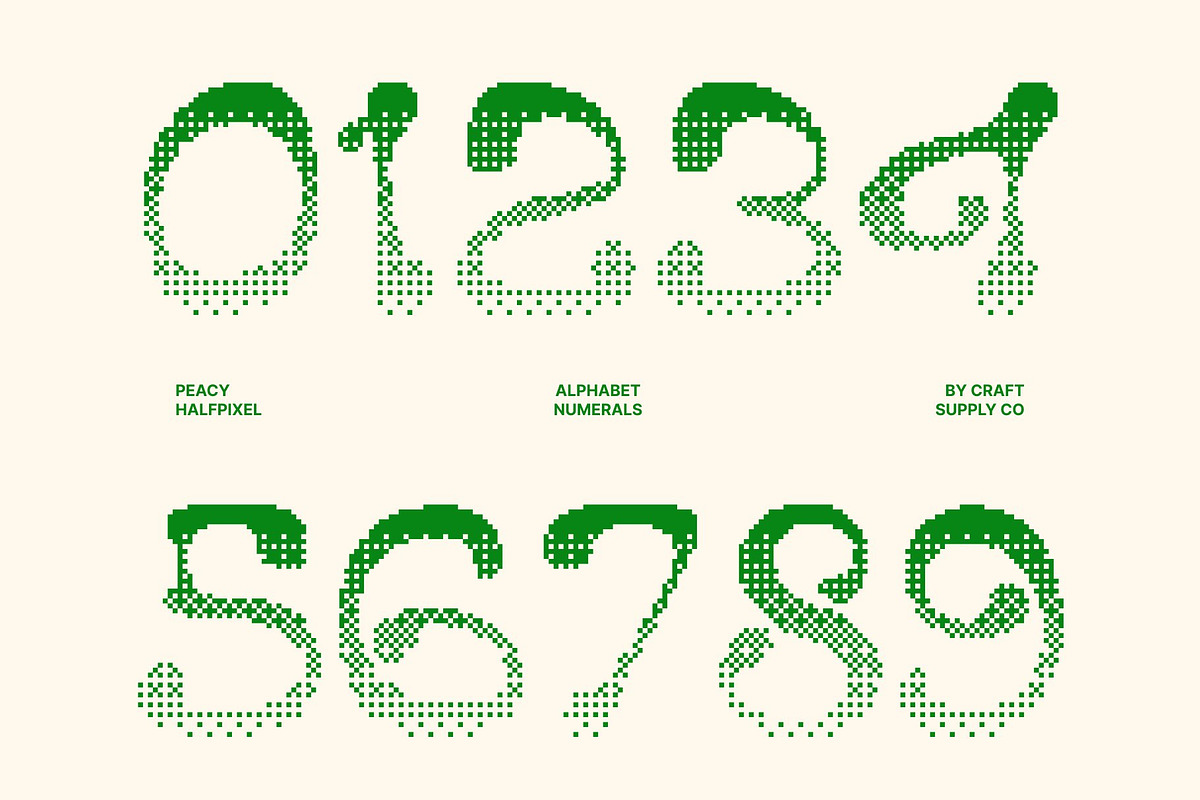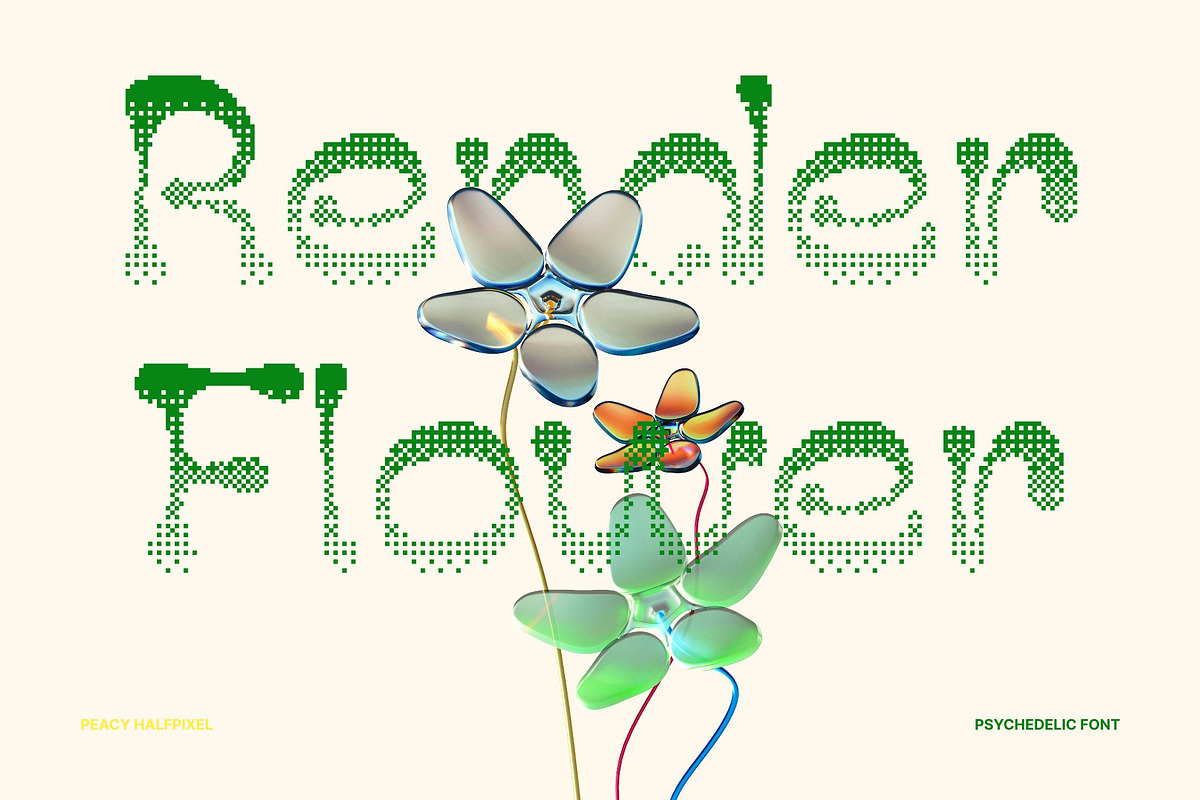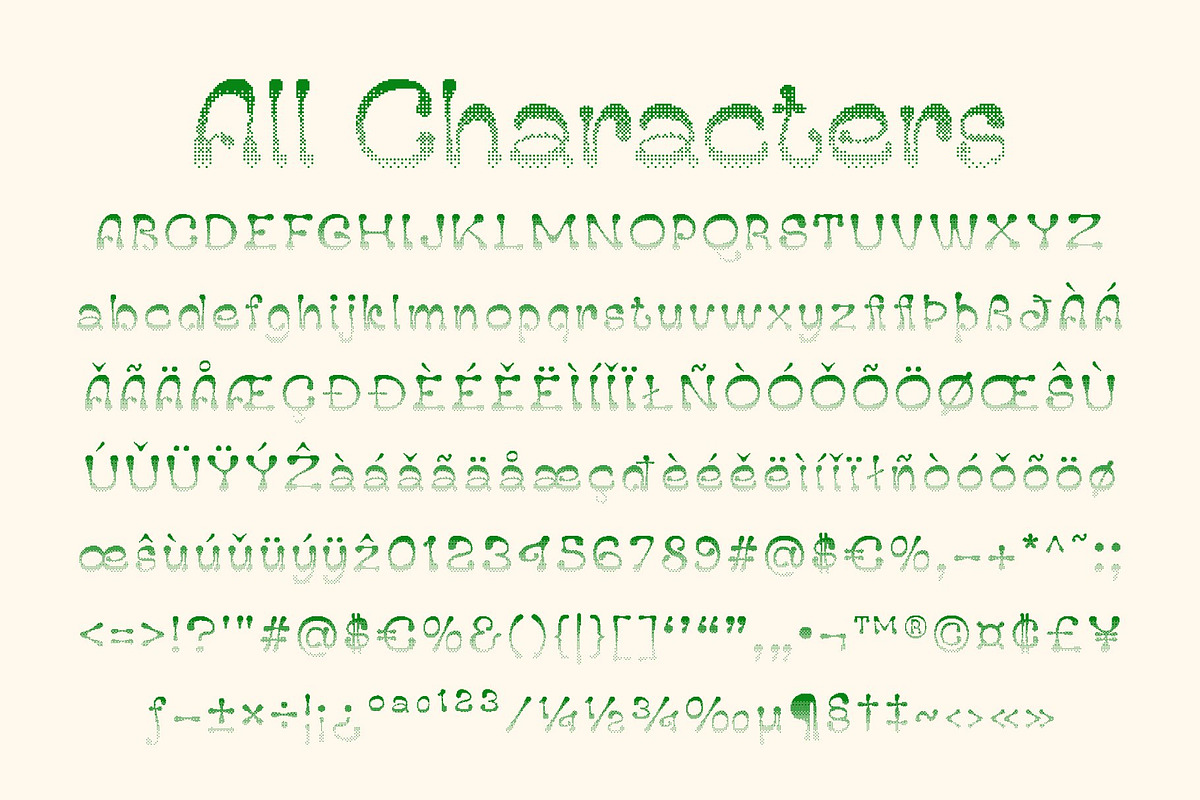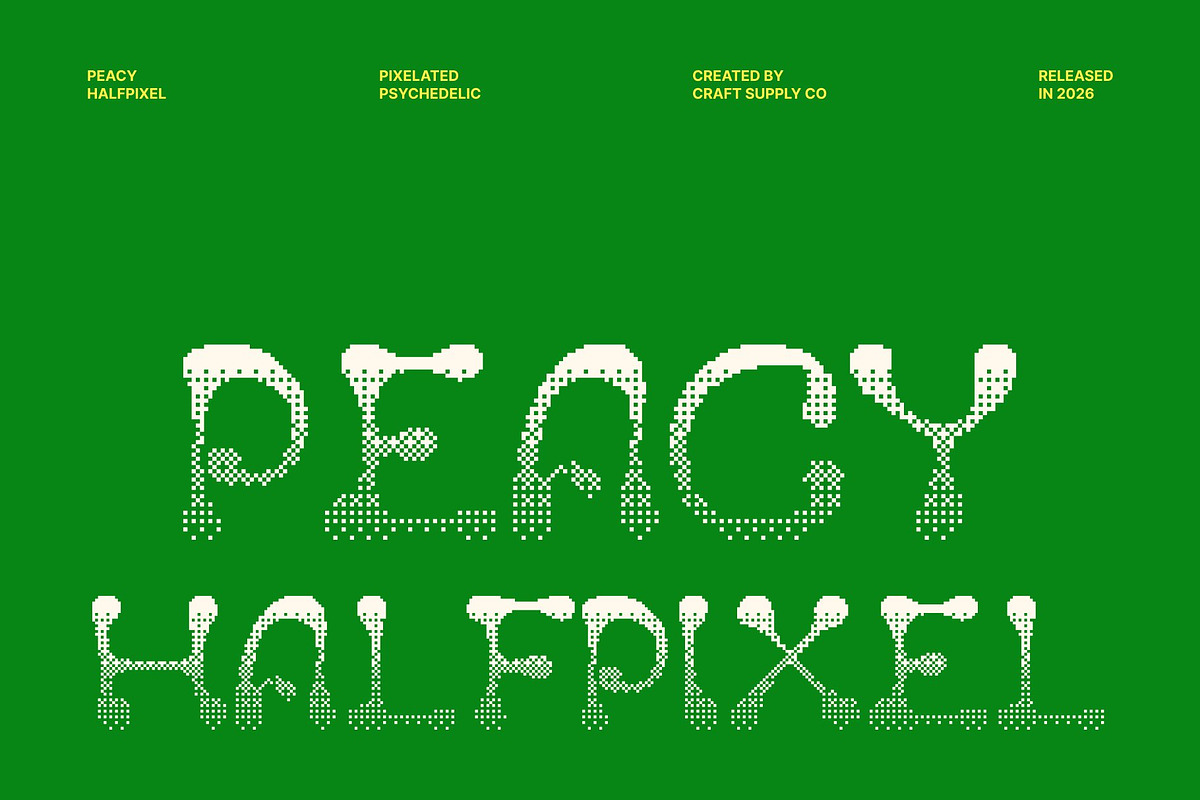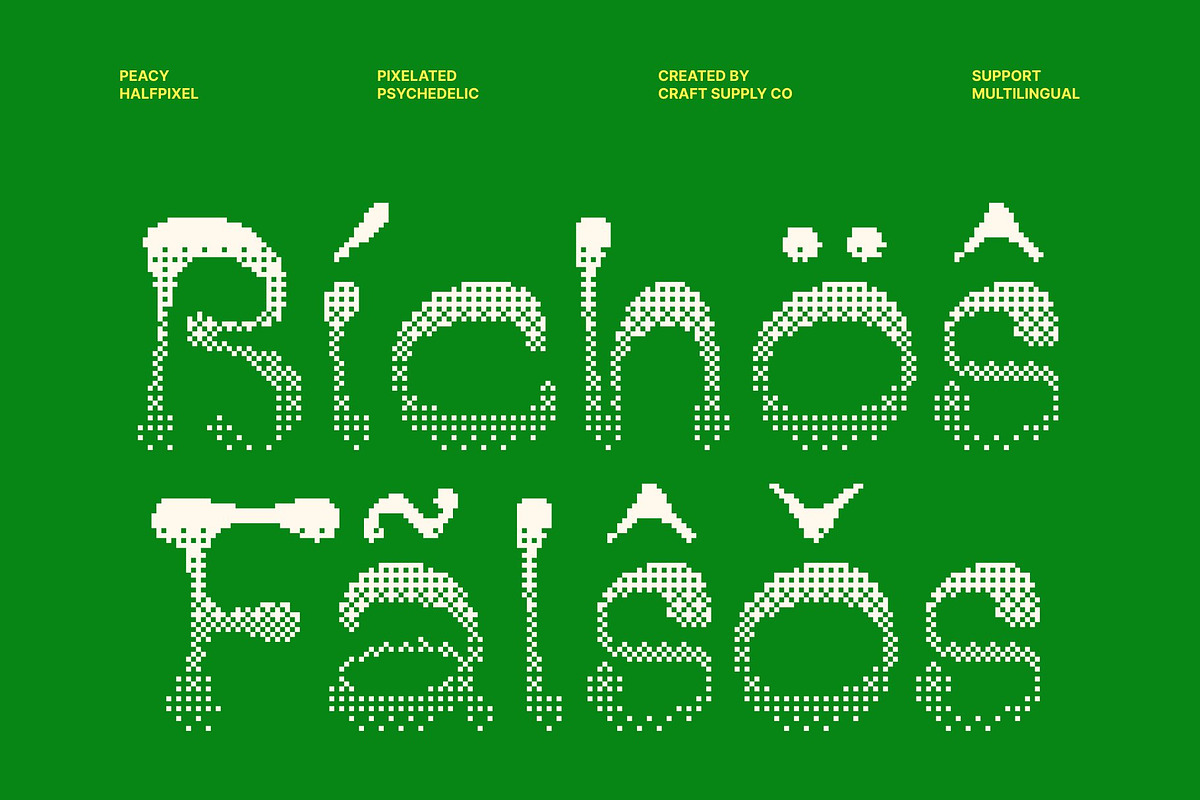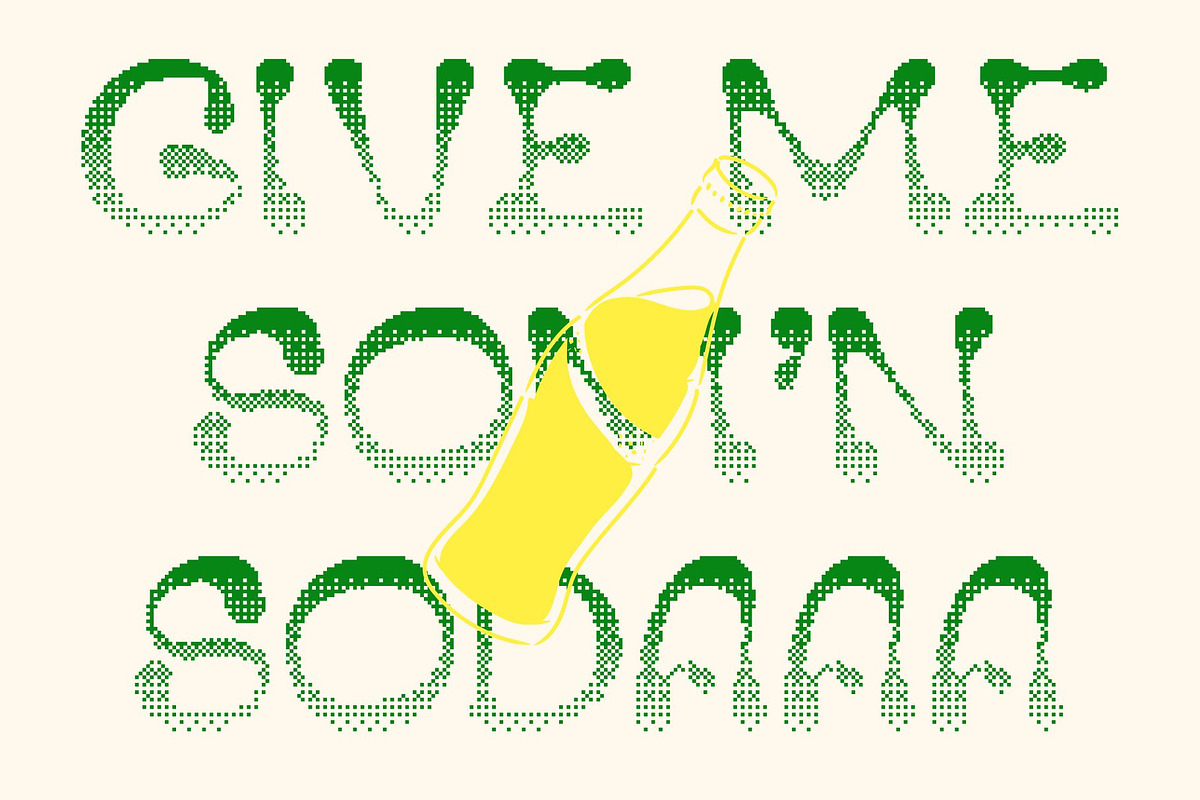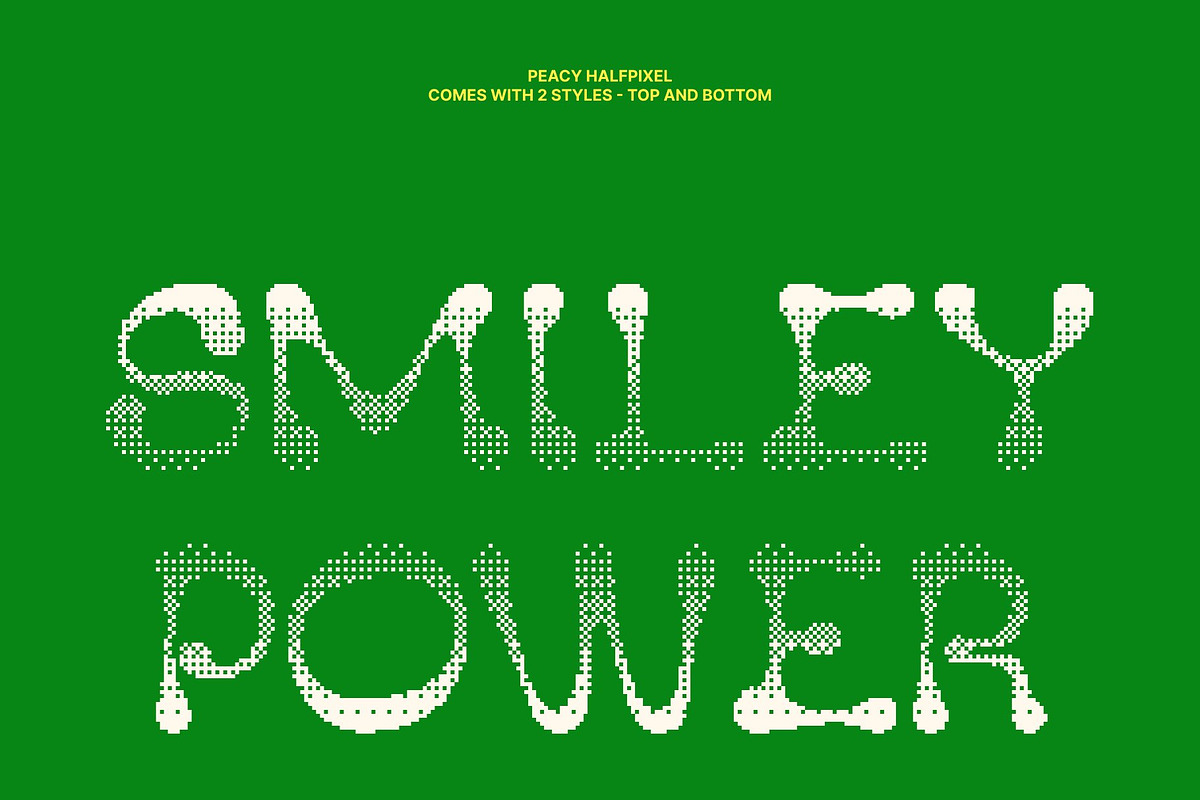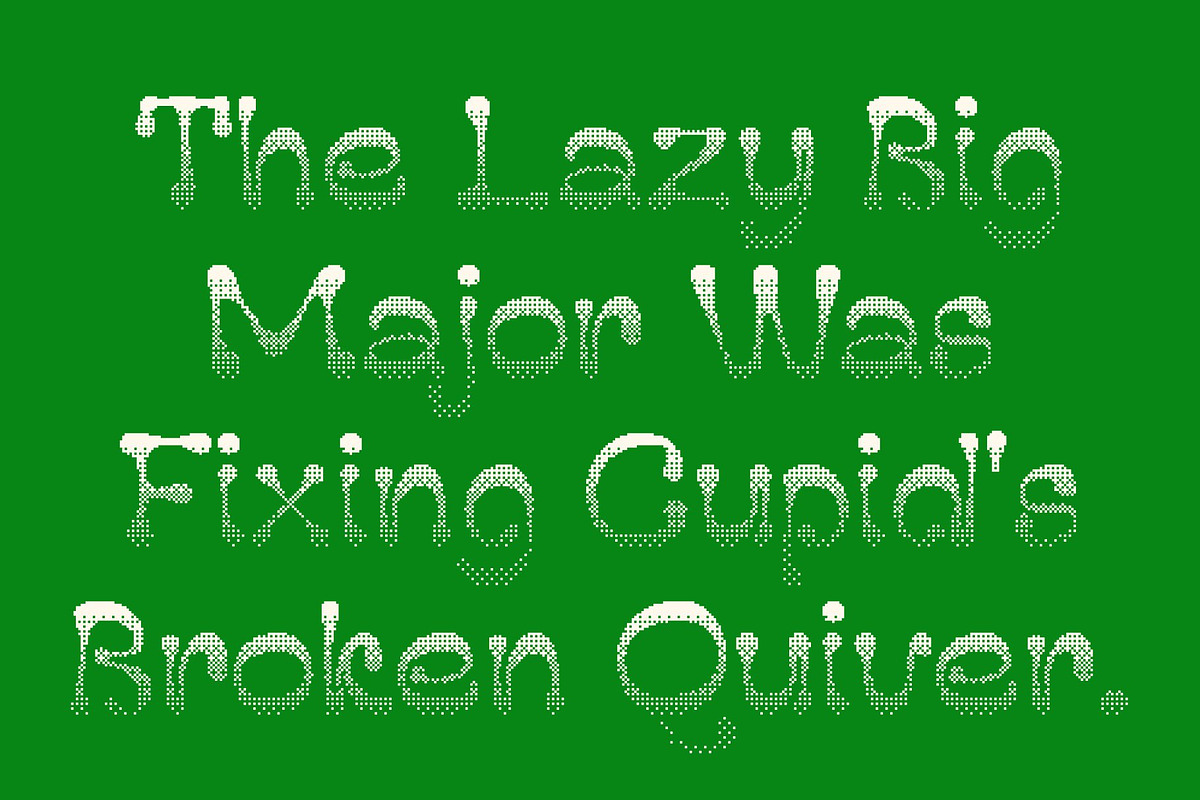
Peacy Halfpixel
Peacy Halfpixel – Psychedelic Display Font
Playful and Vibrant Typography This is a lively psychedelic display font that radiates joy, energy, and creativity. Its flowing shapes and expressive letterforms create a dynamic visual rhythm, giving every word a fun and cheerful personality.
Reggae-Inspired Flow and Freedom Infused with reggae-inspired vibes, this font captures a sense of freedom, positivity, and relaxed movement. Its wavy curves and organic forms echo rhythmic music patterns, bringing a laid-back yet energetic feel to any design.
Halfpixel Finish for Smooth Retro Digital Style The halfpixel treatment introduces a soft anti-aliased edge that smooths the letterforms while preserving their playful psychedelic character. This creates a balanced retro-digital aesthetic that feels both nostalgic and modern.
Versatile for Creative and Expressive Design From festival posters and album covers to party invitations, branding, and social media graphics, this font adapts effortlessly to vibrant and expressive visual projects. Its unique personality ensures every design stands out.
Spread Positivity Through Typography With its uplifting forms and rhythmic flow, Peacy Halfpixel turns text into a joyful visual experience, helping you communicate good vibes, creativity, and positivity in every composition.